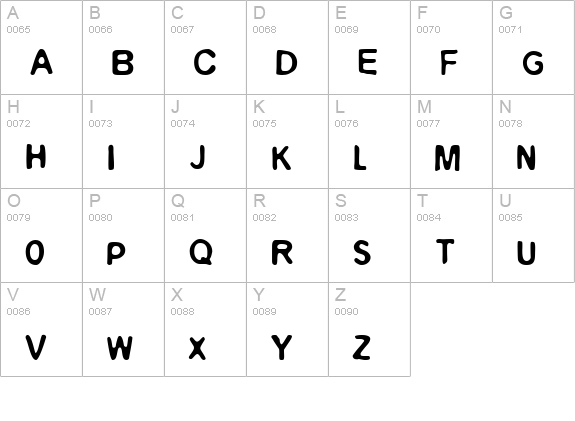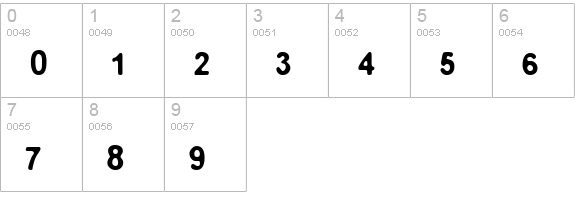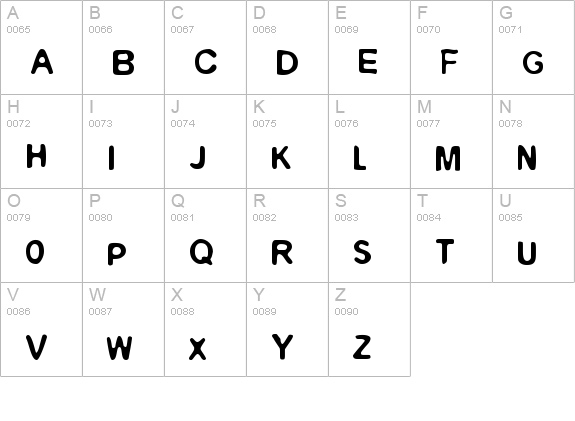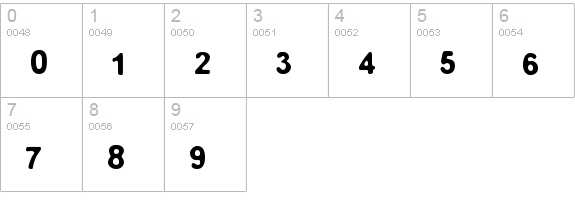
Epilog font is a modern and elegant typeface that exudes sophistication and style. Its sleek lines and graceful curves make it perfect for a variety of design projects, from branding to editorial layouts. The versatility of Epilog font allows it to be used in both digital and print media, making it a must-have for any designer. What sets Epilog font apart is not only its stunning appearance but also the fact that it is completely free to download. Yes, you read that right - this high-quality font can be yours at no cost! Simply visit FontsMarket.com to easily download Epilog font and start incorporating its beauty into your designs today. Whether you're working on a professional project or a personal creation, Epilog font will elevate your work to the next level. Don't miss out on this fantastic opportunity to enhance your design arsenal with a top-notch font that won't cost you a penny. Download Epilog font now and let your creativity shine!